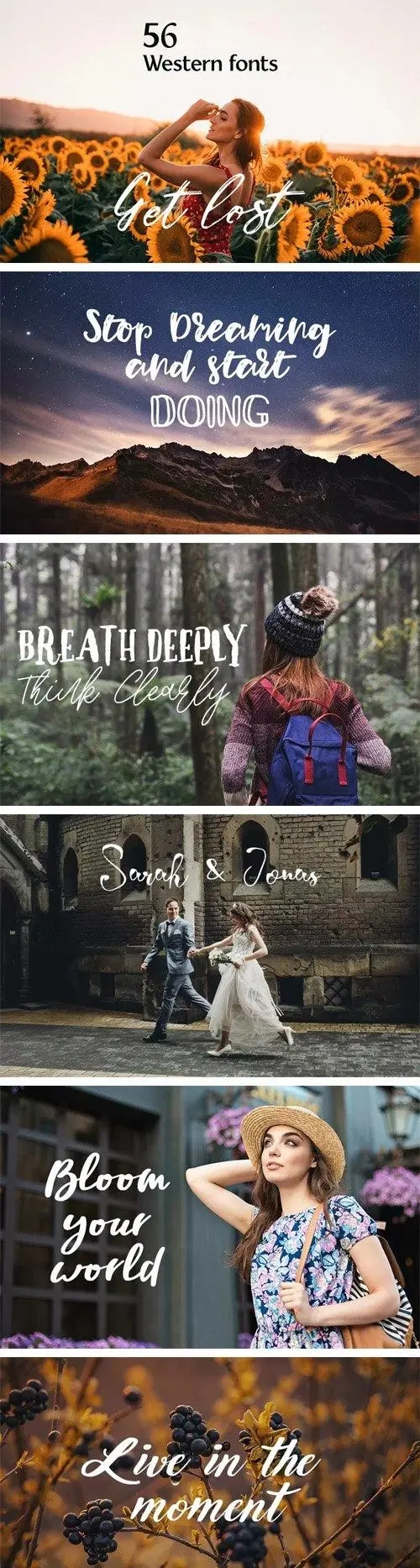
Western Fonts Pack – 56 Fonts
Elevate your design projects with the Western Fonts Pack, featuring a diverse collection of 56 unique fonts inspired by Western themes. This pack includes a variety of styles, from bold serifs to elegant scripts, ensuring you have the perfect typeface for any creative endeavor.
• 56 distinct font styles
• Includes various weights and styles